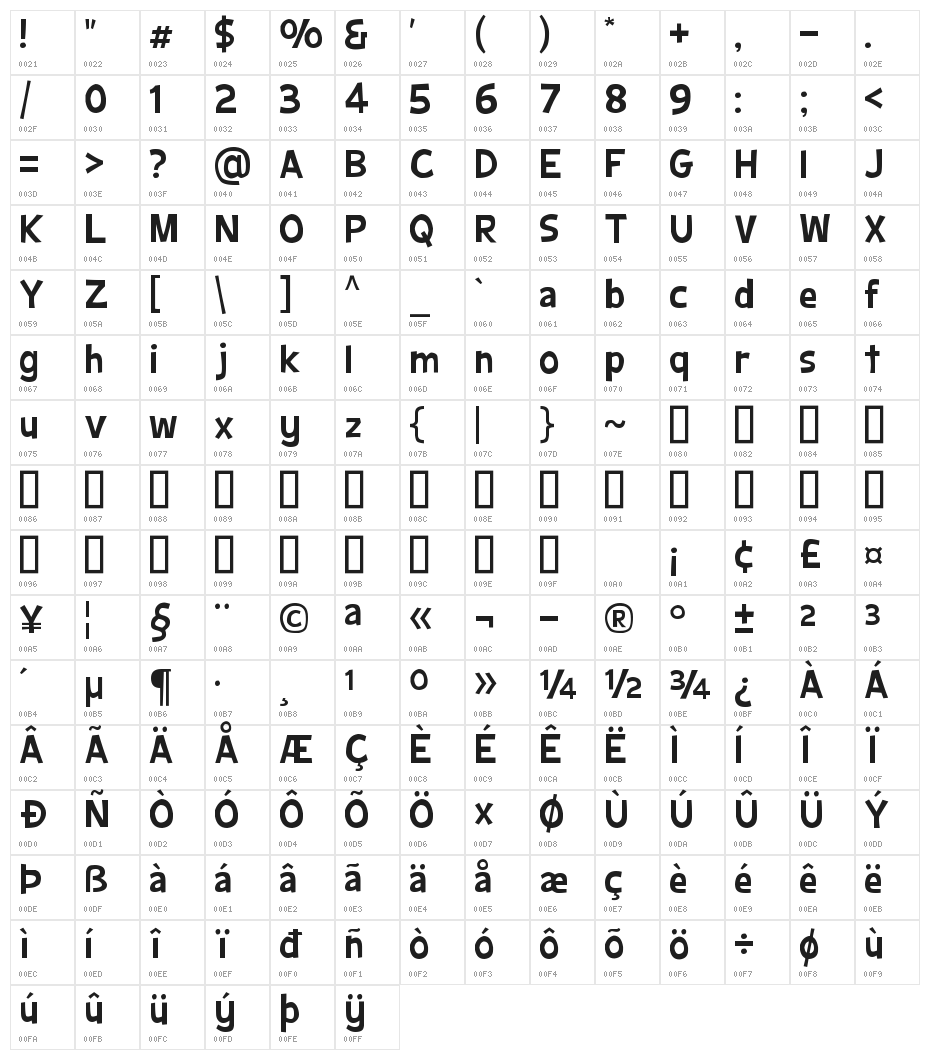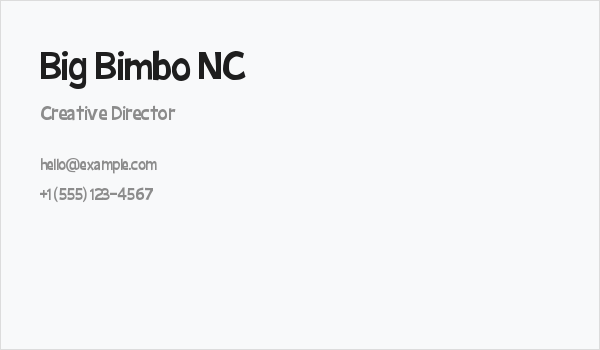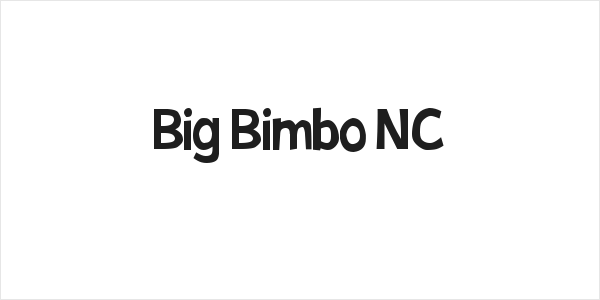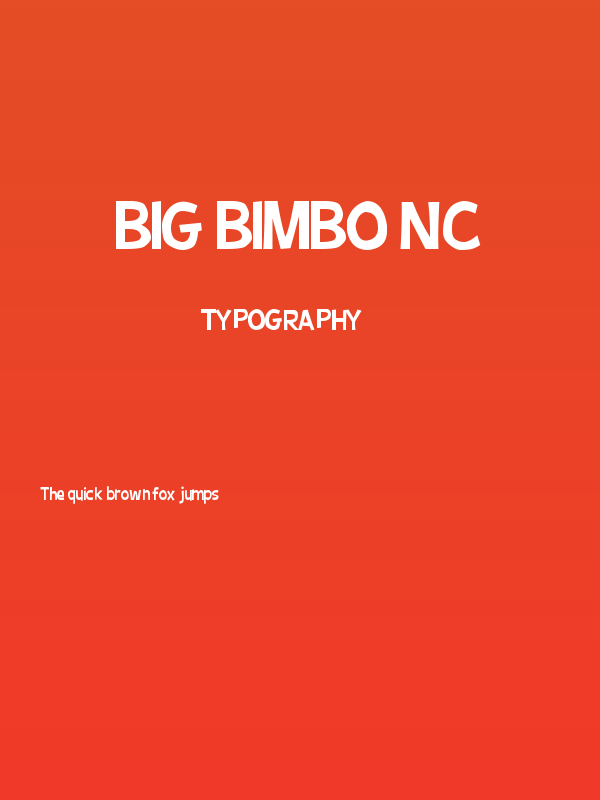
Big Bimbo NC Font
Big Bimbo NC Description
This font features bold, rounded characters with a playful and friendly appearance. The letters are uniformly thick, giving a strong and impactful presence. The rounded edges and slightly condensed form contribute to its approachable and informal style. It maintains a consistent weight throughout, ensuring readability and clarity. The numerals and special characters follow the same design principles, making them cohesive with the alphabet. This font is versatile, suitable for various applications where a bold and inviting look is desired.
| Proposed Projects | Ideal for children's books, playful branding, posters, and informal digital content. |